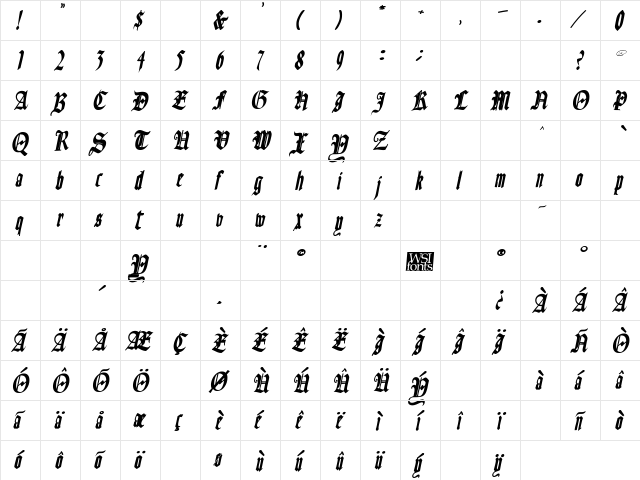
Fains BoldItalic Font Preview
Fains BoldItalic
Fains BoldItalic Font Details
Design Context for Fains Typeface
Fains is a composed and adaptable typeface that performs quietly and consistently across a wide range of design contexts. Its italic angle brings a sense of urgency and motion to the letterforms. The heavy weight commands attention and anchors typographic hierarchies.